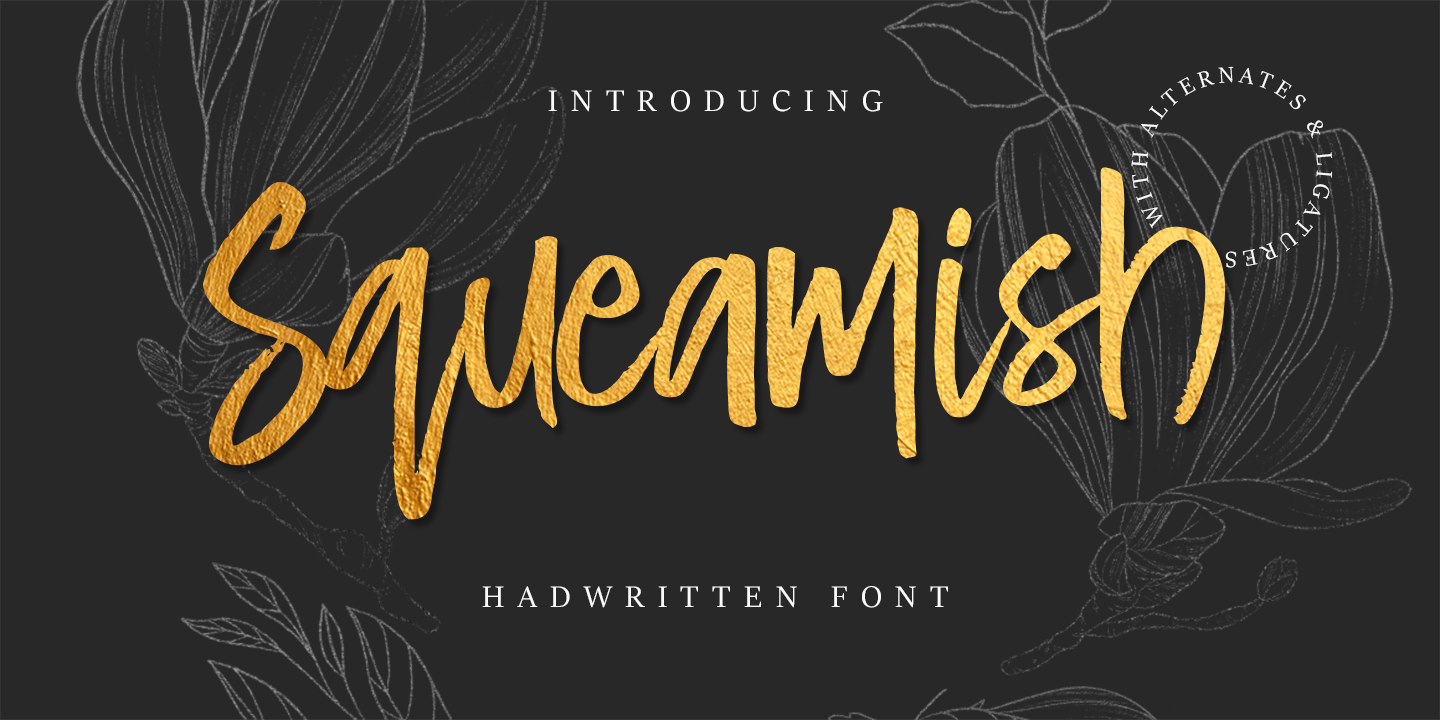
Squeamish Font is perfect for horror movie posters, Halloween event invitations, creepy carnival graphics, spooky game interfaces, gothic band merchandise, and unsettling psychological thriller designs.
Squeamish Font is exciting because it masterfully evokes feelings of unease and nervous tension, delivering a distinctively unsettling typeface that creates spine-tingling atmosphere and psychological discomfort in every letter.
The Squeamish Font family includes disturbing variations: Squeamish Light, Squeamish Regular, Squeamish Bold, distressed alternates, and eerie decorative elements that amplify the font's unsettling character.
Embrace the uncomfortable with Squeamish Font Free Download, a psychologically provocative typeface that brings spine-chilling unease and nervous energy to your most unsettling design projects. This disturbing font excels in creating memorable branding for haunted attractions, escape room experiences, psychological horror productions, and alternative entertainment venues that thrive on creating controlled fear and adrenaline-pumping excitement. The deliberately crafted letterforms feature irregular shapes and anxiety-inducing proportions that communicate tension, discomfort, and psychological instability while maintaining surprising readability even in their most distorted applications. Perfect for thriller novel covers, dark comedy productions, underground music venues, and avant-garde art installations that challenge conventional comfort zones, this font connects with audiences who seek intense emotional experiences and unconventional entertainment. Each character writhes with nervous energy, making every headline feel like a warning sign before entering dangerous psychological territory. Squeamish Font transforms ordinary communications into unsettling encounters that leave lasting impressions on brave souls willing to confront their deepest fears.